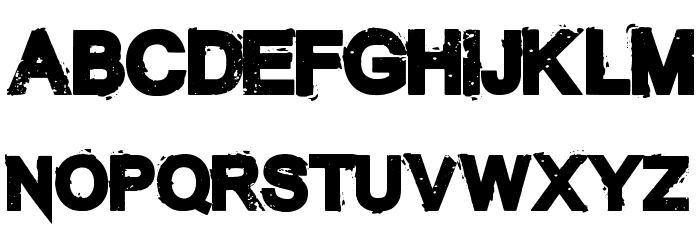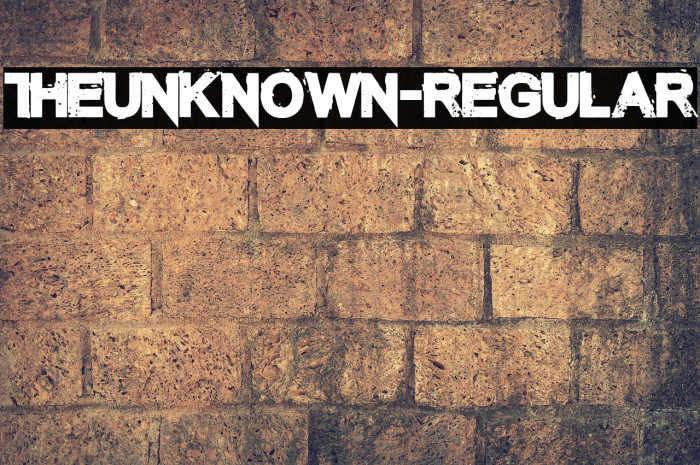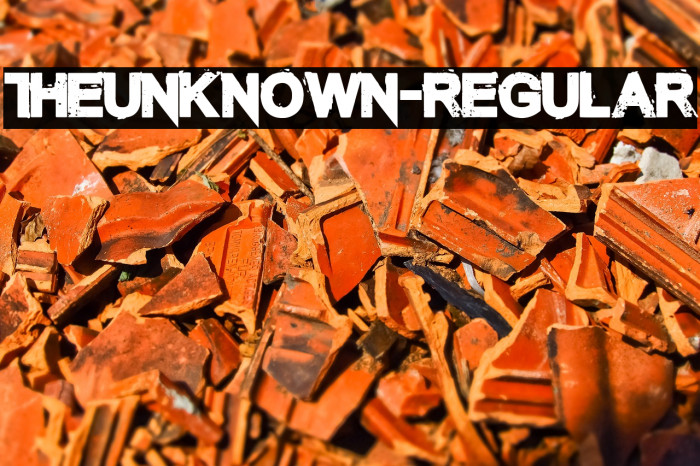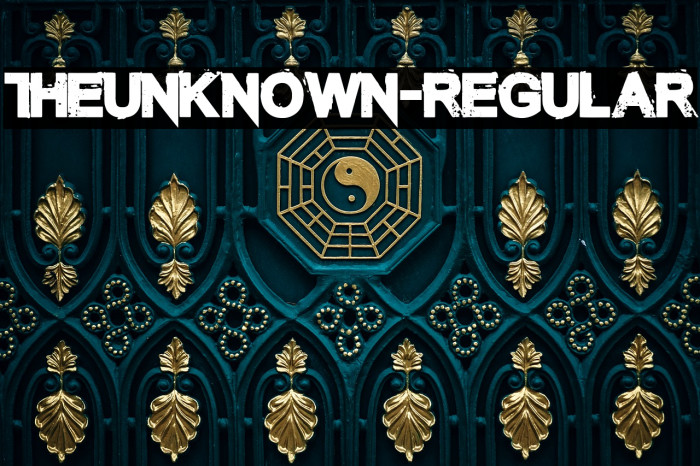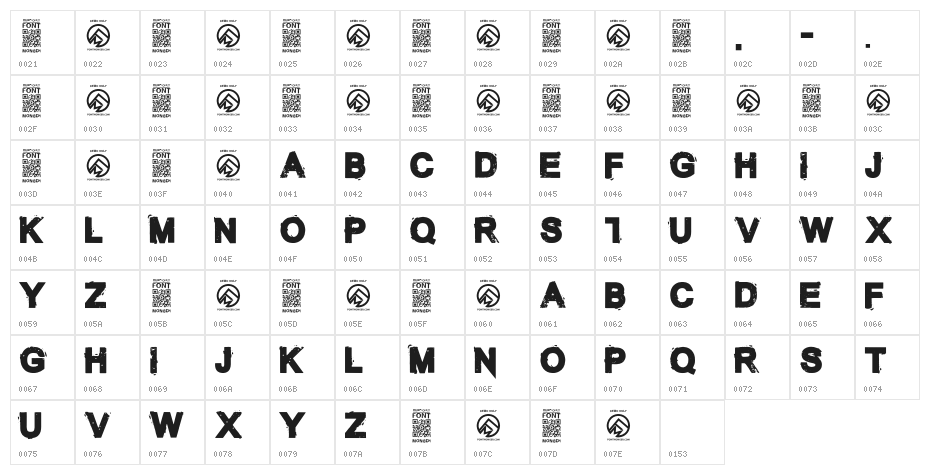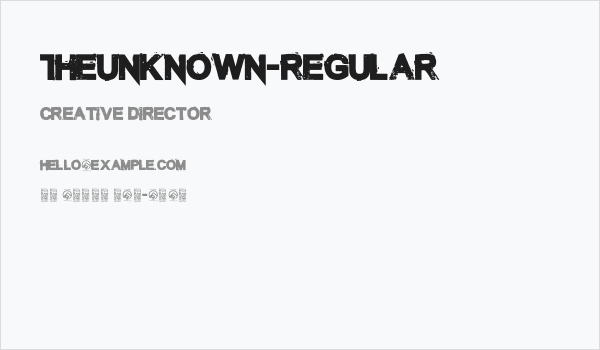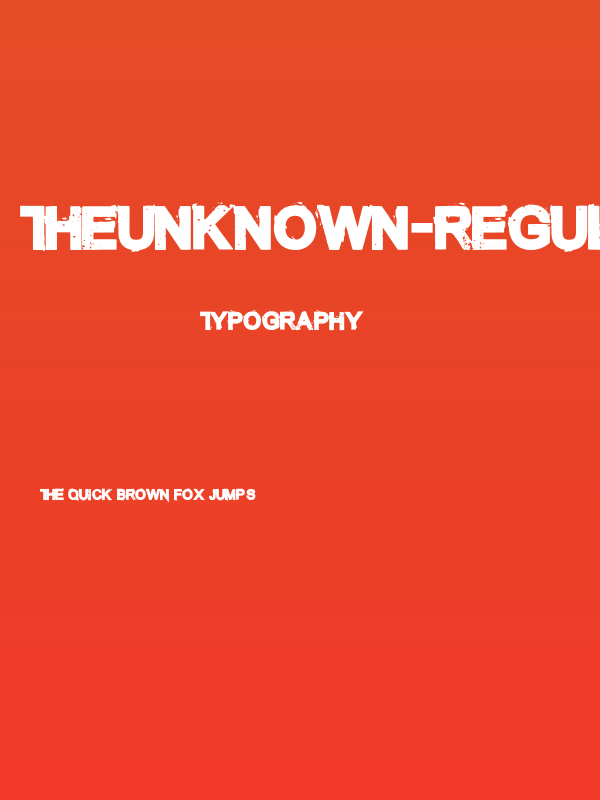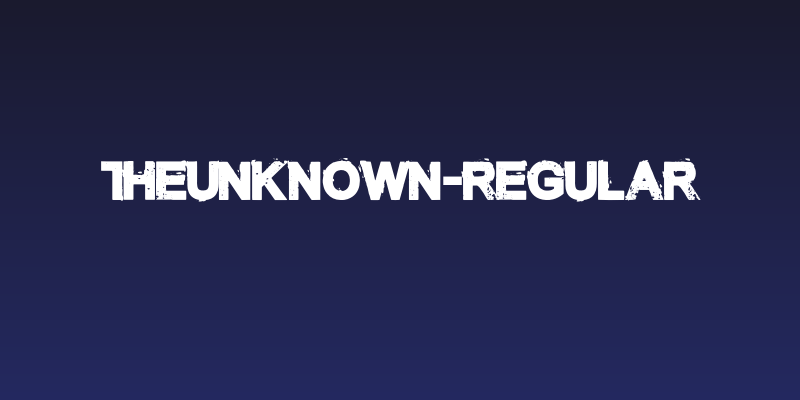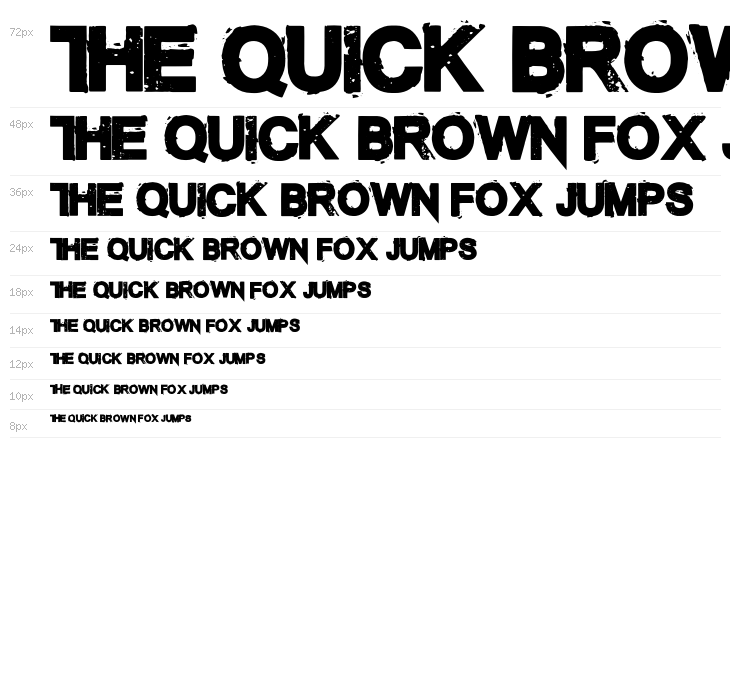
TheUnknown-Regular Font
This font features a bold and distressed style, giving it a rugged and edgy appearance. The characters are heavily textured, with a worn-out look that suggests a vintage or grunge aesthetic. The uppercase letters are prominent and impactful, making them suitable for attention-grabbing headlines or titles. The font's unique texture adds character and depth, making it stand out in various design contexts. Its boldness ensures readability while the distressed elements provide a creative flair.
A bold, distressed font with a rugged, vintage aesthetic.
- Proposed Projects: Ideal for posters, album covers, branding for edgy products, or any design needing a bold, vintage look.
- Overall Style: Vintage